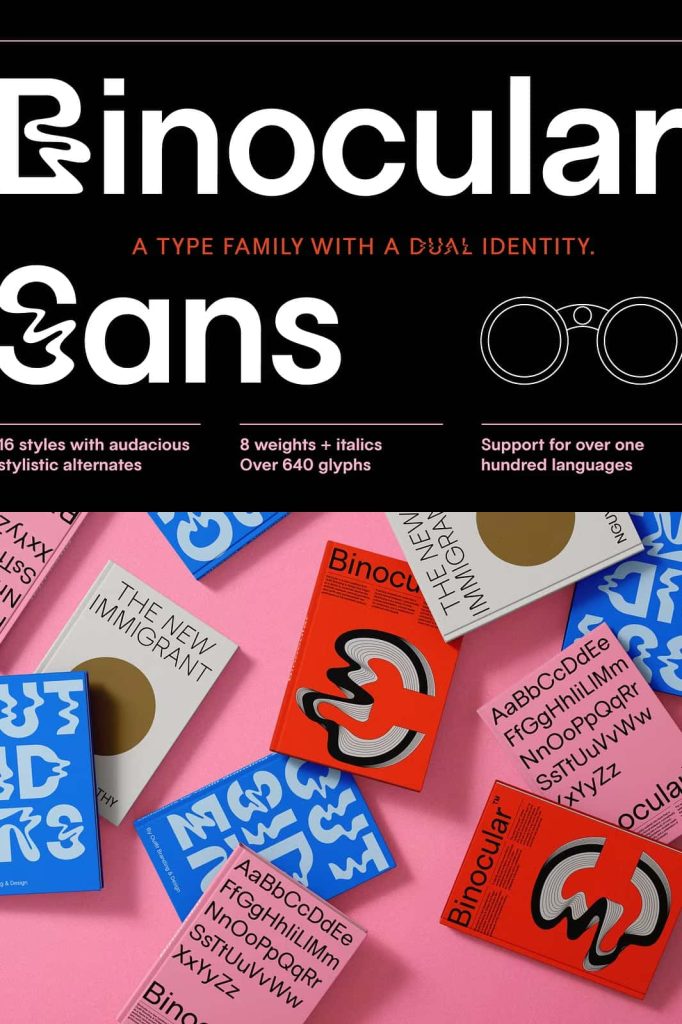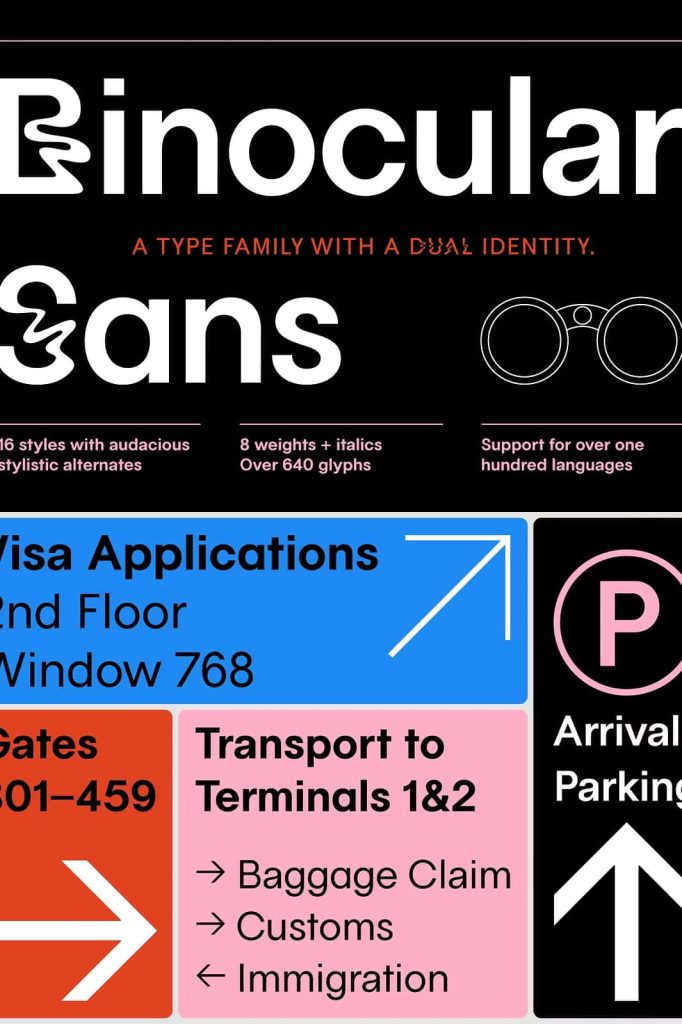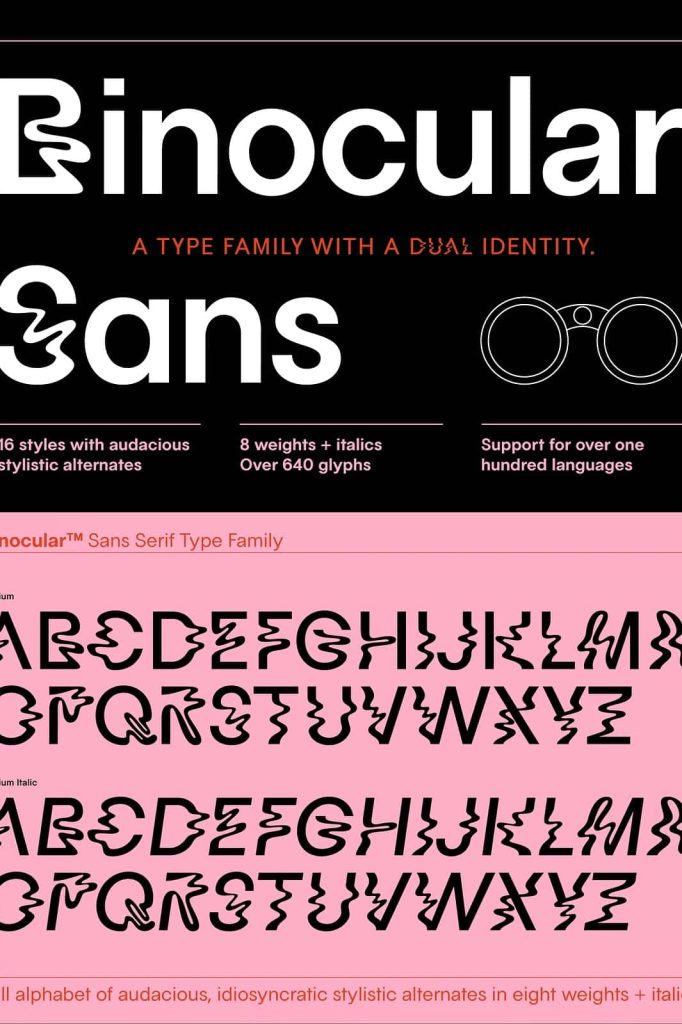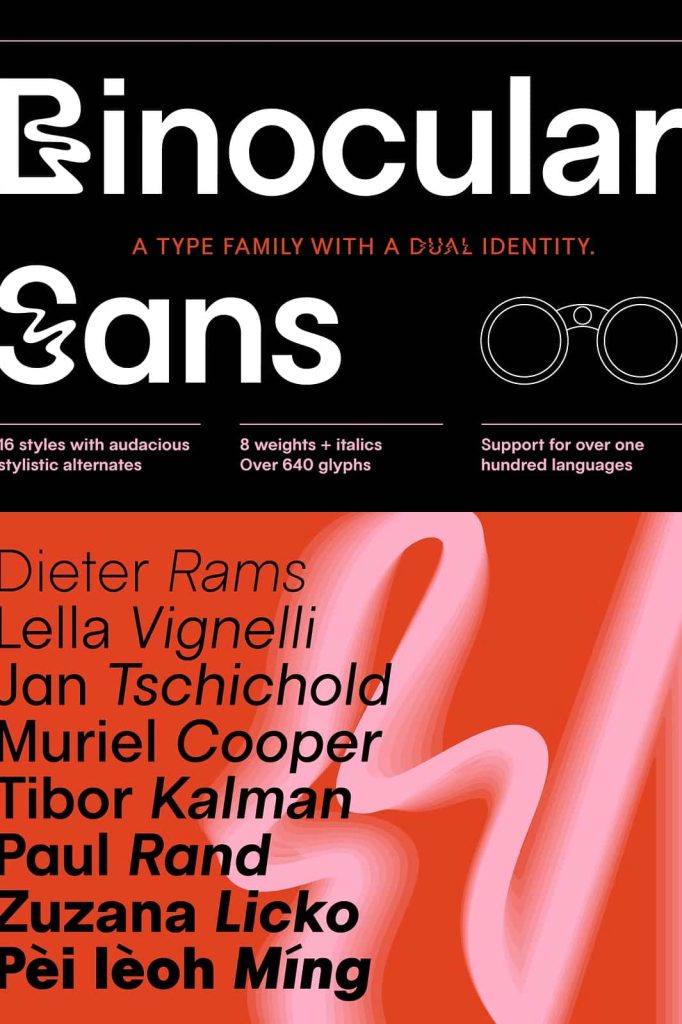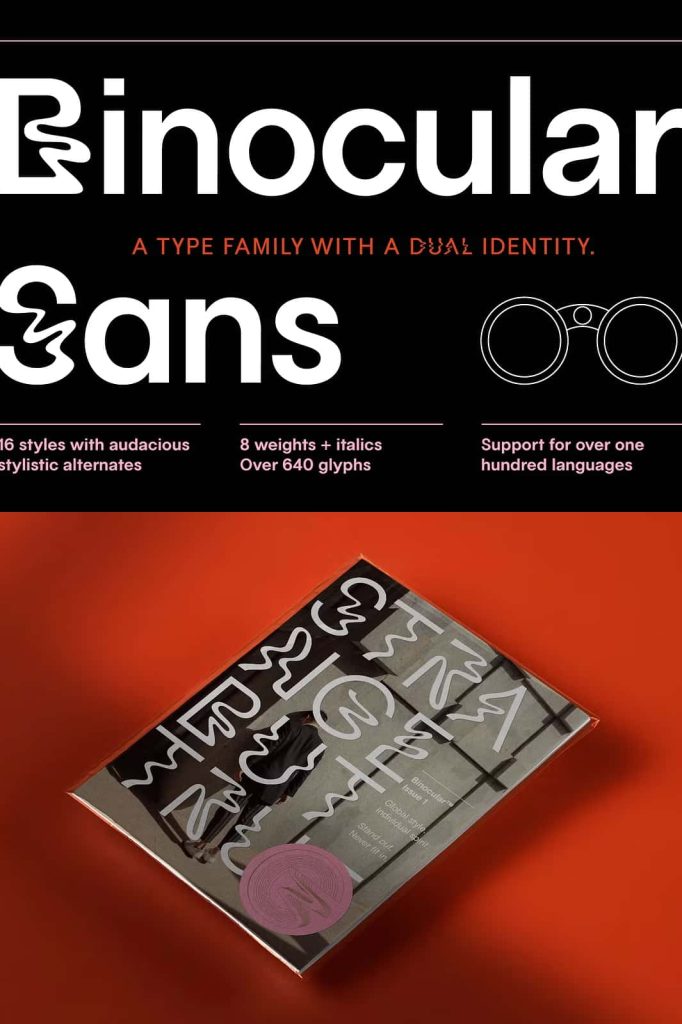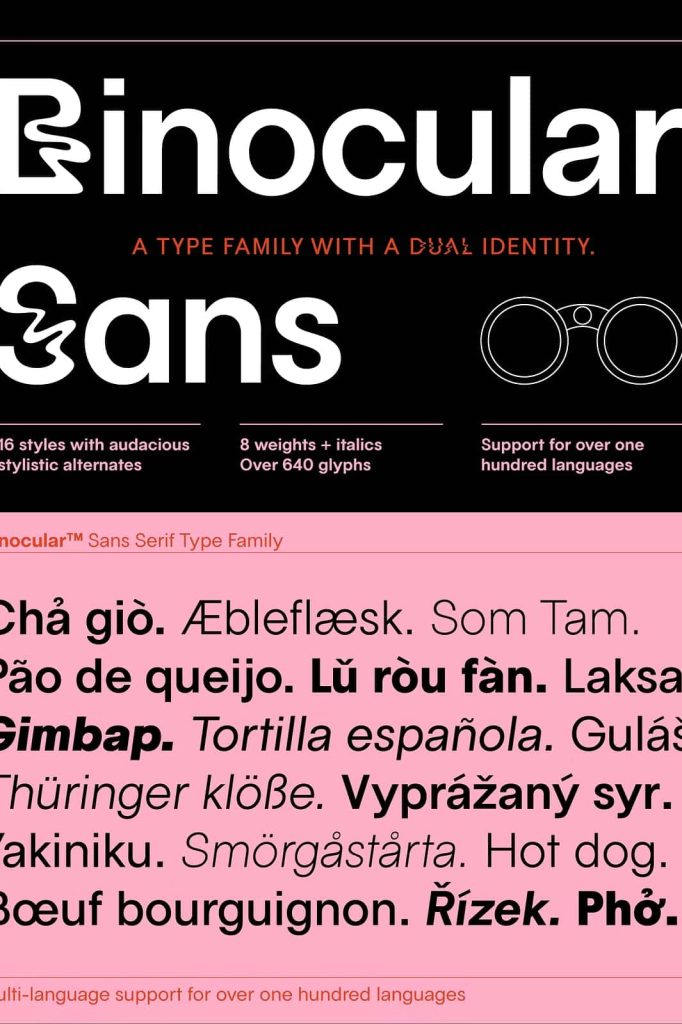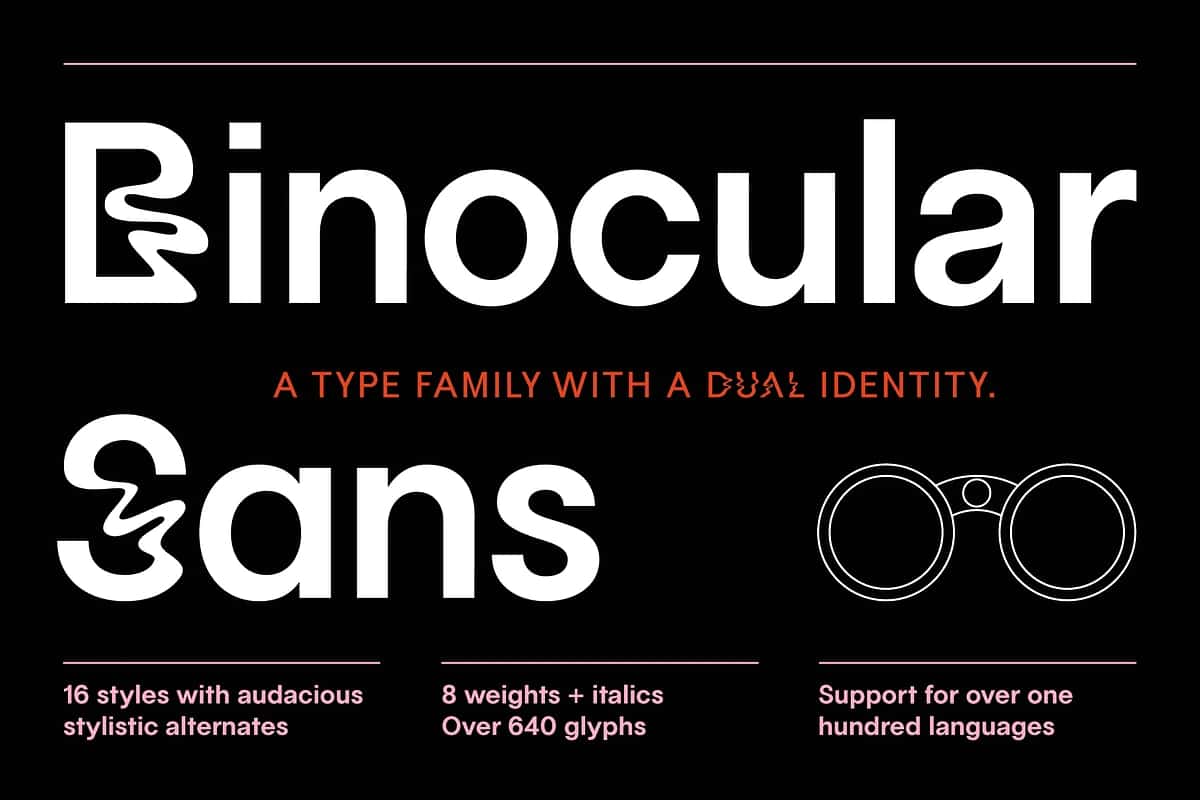
70% OFF Binocular Sans Font FamilydezzignerOctober 30, 2024Fonts SUMMER SALE 70% OFF! Binocular Sans is a sans serif type family with a dual identity. Download